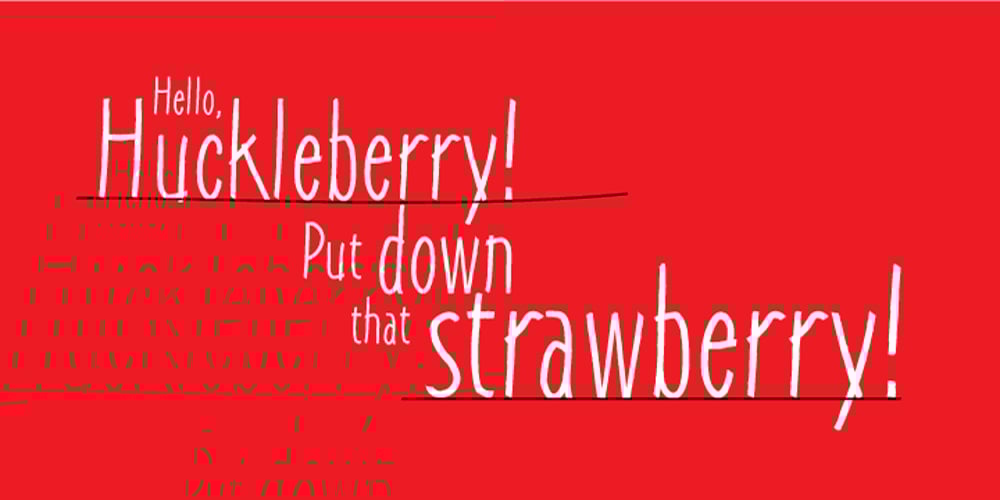
Qiltray
Qiltray font
Qiltray Font Family was designed by Dusan Jelesijevic and published by Tour De Force. Qiltray contains 1 styles and family package options. Qiltray is a good example of how handwritten fonts can be made for use in long texts. With clear and readable letters, Qiltray may be used in any kind of publications. Includes Cyrilic and CE character set support.